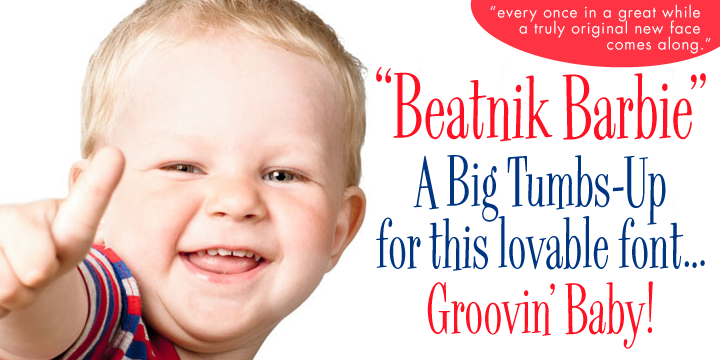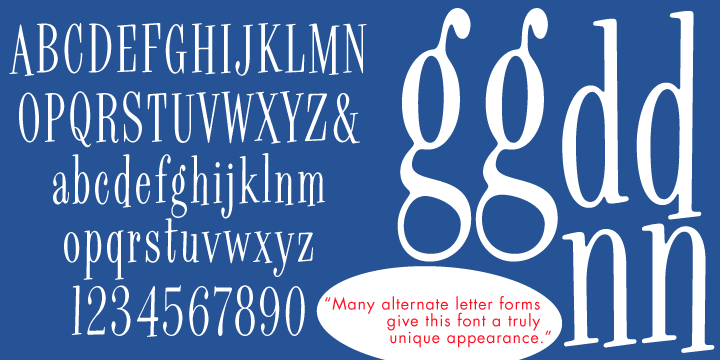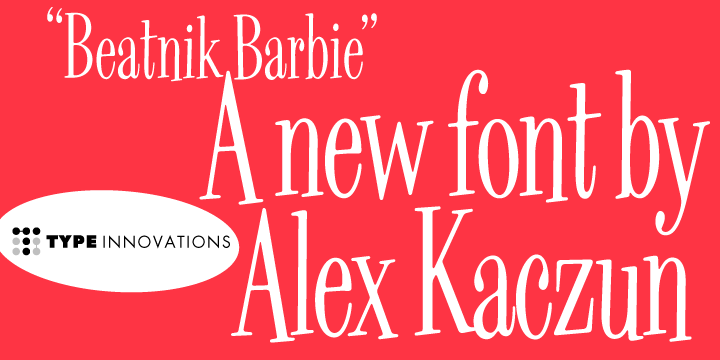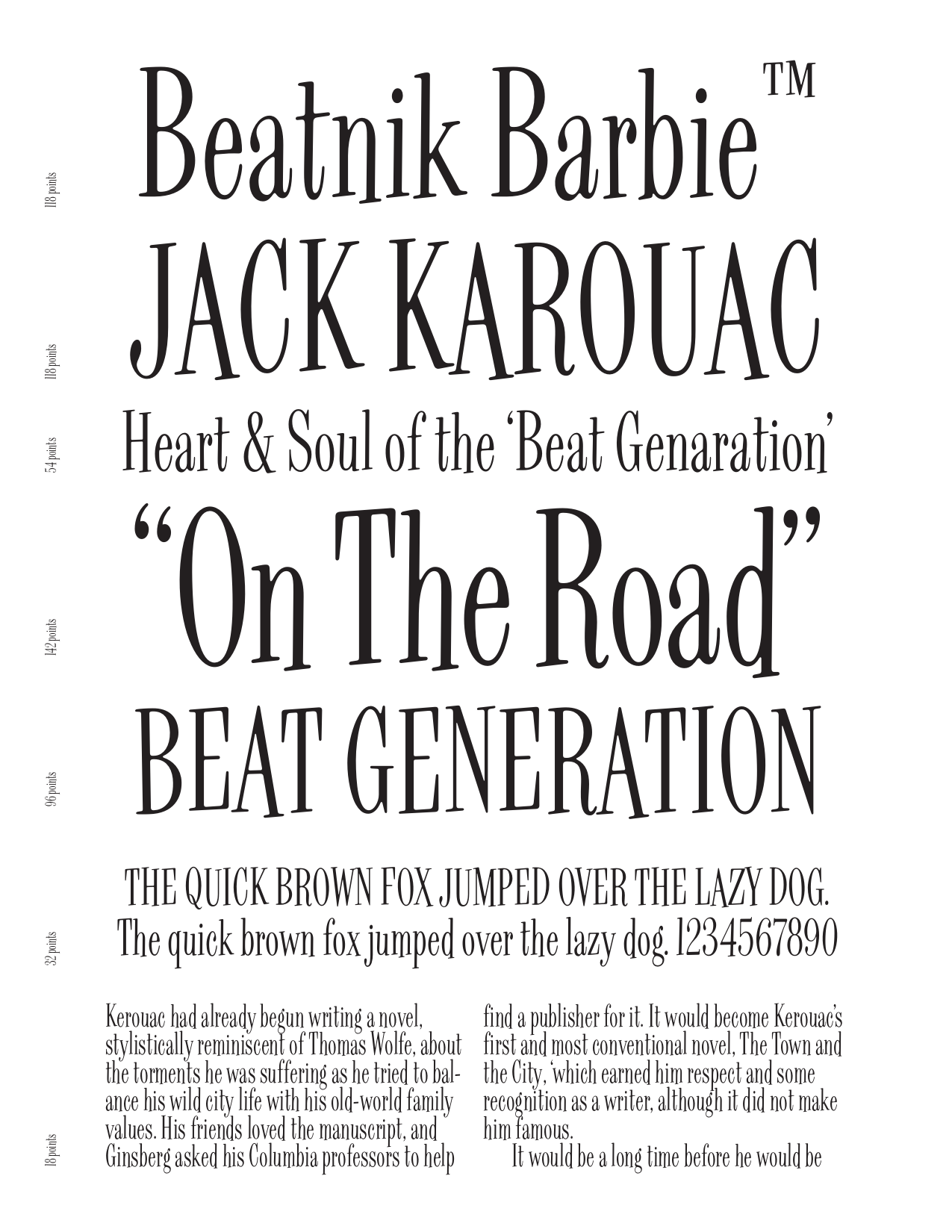
Beatnik Barbie
Beatnik Barbie is an original design by Alex Kaczun and is a derivative work based on his original 'Beatnik' font. It has a playful and informal style, and invokes a casual and friendly mood. Many alternate letter forms give it a truly custom hand-written appeal.